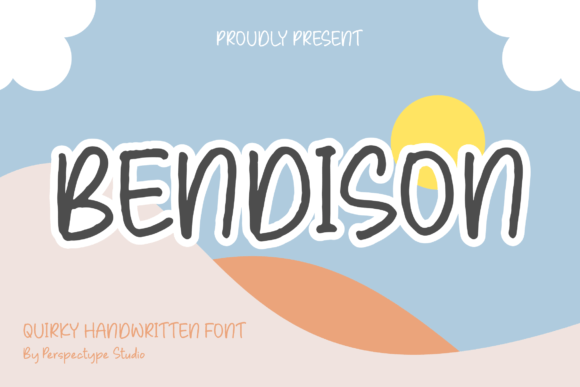
The Quest for the Perfect Handwritten Font: Meet Bendison
I’ll never forget the time I was working on a branding project for a trendy homeware store, and I just couldn’t find the right font to capture the quirky, yet elegant vibe of the brand. My client was adamant that they wanted something handwritten, but not too casual. I scoured the internet, tried out dozens of fonts, but nothing seemed quite right. That was until I stumbled upon Bendison – a quirky handwritten font that instantly resonated with the brand’s aesthetic.
An Honest Review of Bendison
- ✨ Unique Character: Bendison has a distinct, hand-crafted feel that sets it apart from other fonts. Each letter is carefully designed to give your projects a personal touch.
- ✅ Versatile: Whether you’re working on logos, branding projects, homeware designs, product packaging, or even t-shirts, Bendison fits right in.
- 💫 Easy to Read: Despite its quirky nature, Bendison remains highly legible, making it perfect for both headlines and body text.
Of course, no font is perfect, and Bendison has a few minor quirks:
- 🤔 Limited Formality: Bendison is, by nature, a casual font. It might not be the best fit for very formal or corporate projects.
- ⚠️ Glyph Limitations: While Bendison comes with a range of glyphs and stylistic alternates, it might not have every special character you need.
- Experiment with OpenType features like ligatures and stylistic alternates to add personality to your text.
The Story Behind Bendison
Bendison was inspired by the founder’s love of handwritten typography and their desire to create a font that was both quirky and elegant. The designer behind Bendison spent countless hours perfecting the font, ensuring that it was both beautiful and functional.
| Font Name | Bendison Font |
| Author | Perspectype |
| Does Bendison come with a range of glyphs and special characters? | Yes, Bendison includes a range of glyphs, stylistic alternates, and OpenType features to help you customize your text. |
| Is Bendison easy to read? | Despite its quirky nature, Bendison is highly legible, making it perfect for both headlines and body text. |